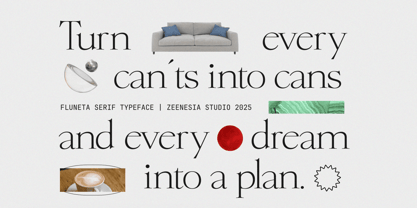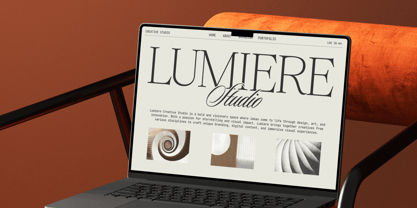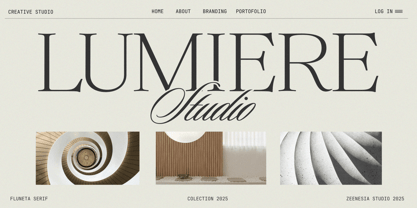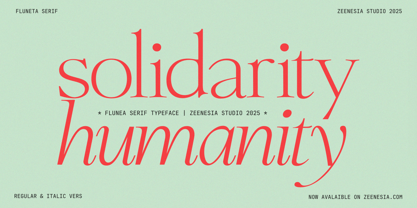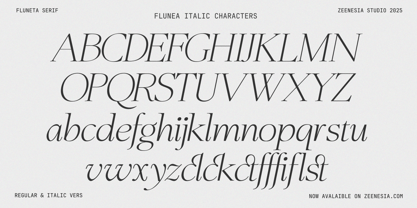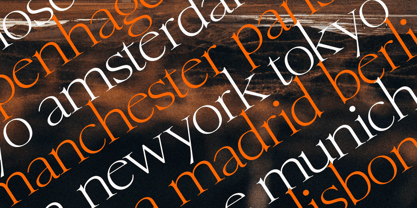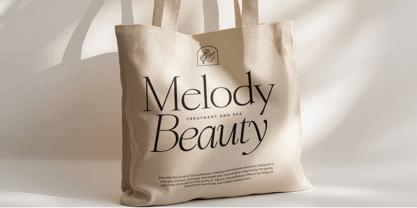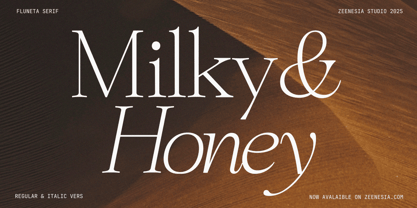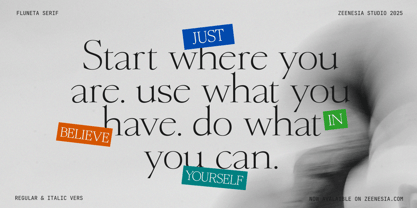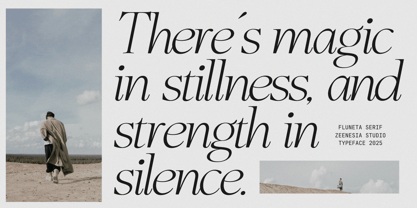
Fluneta
by Zeenesia Studio
The Fluneta Font Family was designed by Doni Purwoko and published by Zeenesia Studio. Fluneta contains 2 styles and family package options.
Fluneta is a refined serif typeface that blends classic elegance with a touch of modern charm. Available in Regular and Italic styles, Fluneta was designed to bring sophistication and clarity to any layout — whether in print or digital.
Its graceful serifs, balanced proportions, and subtle contrast make it ideal for editorial designs, branding, book covers, and elegant packaging. The Italic version flows beautifully with a gentle slant, adding personality and warmth without sacrificing readability.
Let Fluneta elevate your typography with timeless character and a clean, polished aesthetic. Perfect for designers who seek a serif with soul.